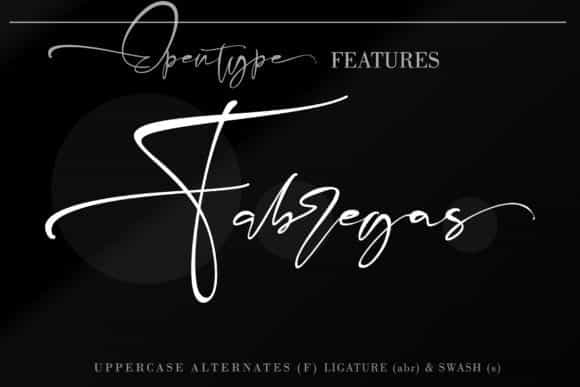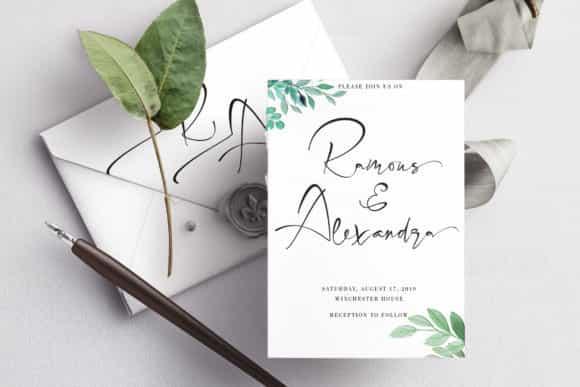
Fabregas is a calligraphic font type of the current modern script type face. This font was handwritten, and it has both modern and unique forms of calligraphy; The writing style is quite natural. It is shared by Thomas Aradea and it is designed in such a way.